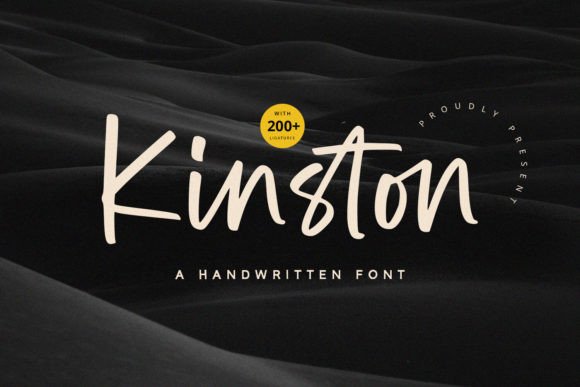
Introducing Kinston Font, the epitome of style and elegance in the world of script fonts. Crafted by the talented alpapranastudio, this font is a true masterpiece that will take your designs to new heights.
Whether you're designing wedding invitations, thank you cards, quotes, greeting cards, logos, or business cards, Kinston Font is the perfect choice to add a touch of sophistication and personality. Its handwritten charm will capture hearts and leave a lasting impression on anyone who lays eyes on it.
With Kinston Font, you can effortlessly create stunning designs that stand out from the crowd. Its intricate details and flowing strokes exude a sense of elegance that is second to none. Each letter is carefully crafted to perfection, making it a true work of art.
This font is not just visually appealing, but also versatile in its applications. From formal events to casual occasions, Kinston Font adapts effortlessly, bringing a touch of class to any project. Its ability to evoke emotions and convey messages with grace makes it a must-have for any designer seeking to make a statement.
Imagine the impact of using Kinston Font on your wedding invitations. The delicate curves and graceful lines will set the tone for a romantic and memorable event. Your guests will be captivated by the sheer beauty and attention to detail, making their hearts flutter with anticipation.
But Kinston Font doesn't stop there. It also adds a personal touch to thank you cards, allowing you to express gratitude with style and elegance. The words written in this font will resonate deeply with the recipients, leaving a lasting impression of your heartfelt appreciation.
Quotes and greeting cards come to life with Kinston Font. Its unique style elevates any message, whether it's a motivational quote or a heartfelt sentiment. The combination of words and design creates a harmonious blend, capturing attention and stirring emotions in the hearts of your audience.
Logos and business cards become a visual representation of your brand's personality with Kinston Font. It adds a touch of professionalism and sophistication, setting you apart from the competition. Your logo will become instantly recognizable, leaving a lasting impression on potential clients and partners.
In a world where first impressions matter, Kinston Font is your secret weapon. It speaks volumes about your attention to detail, your creativity, and your dedication to excellence. Let this font be your guide as you embark on a journey of captivating design and endless possibilities.